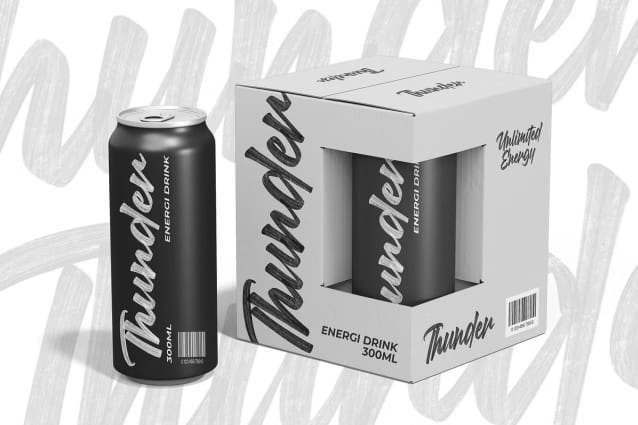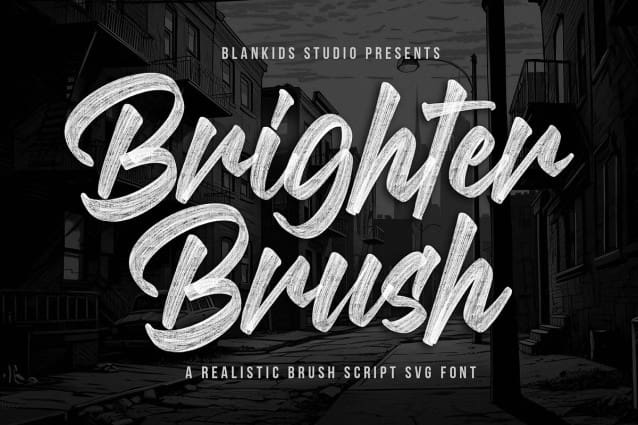
Brighter Brush Typeface
Brighter Brush Typeface, a realistic brush script font is made for any professional project branding, such as logotype, comic, watermarks, poster, branding, promotions, product packaging, etc. Every letter has a realostic brush style.
Brighter Brush font includes a full set of modern clean script uppercase and lowercase letters, numerals and punctuation. This font has a modern script style. See the previews above to get some inspiration on how to use them.